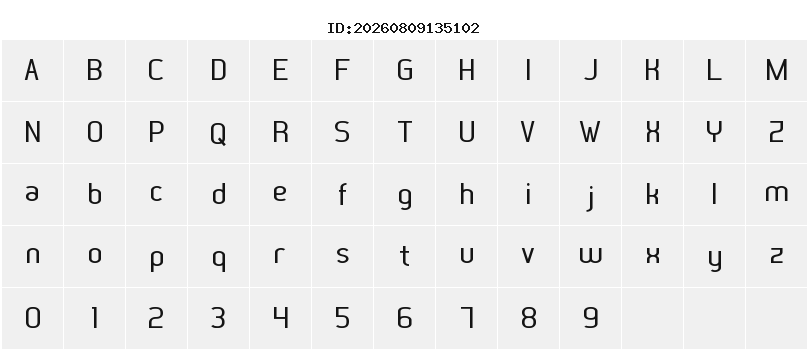
Paul Preview
• Font Name: Paul
• Full Font Name: Paul
• PostScript Name: Paul
About Paul.ttf
Paul.ttf is a modern, elegant sans-serif font designed for ultimate readability and visual harmony. Perfect for branding, headlines, web design, and print materials.